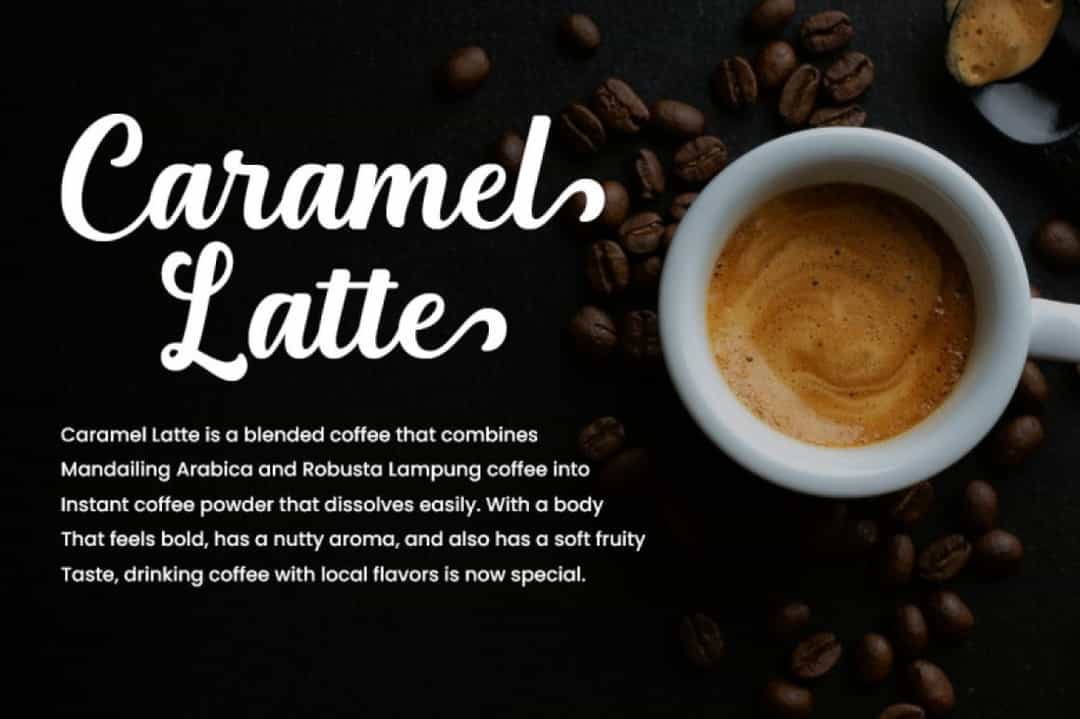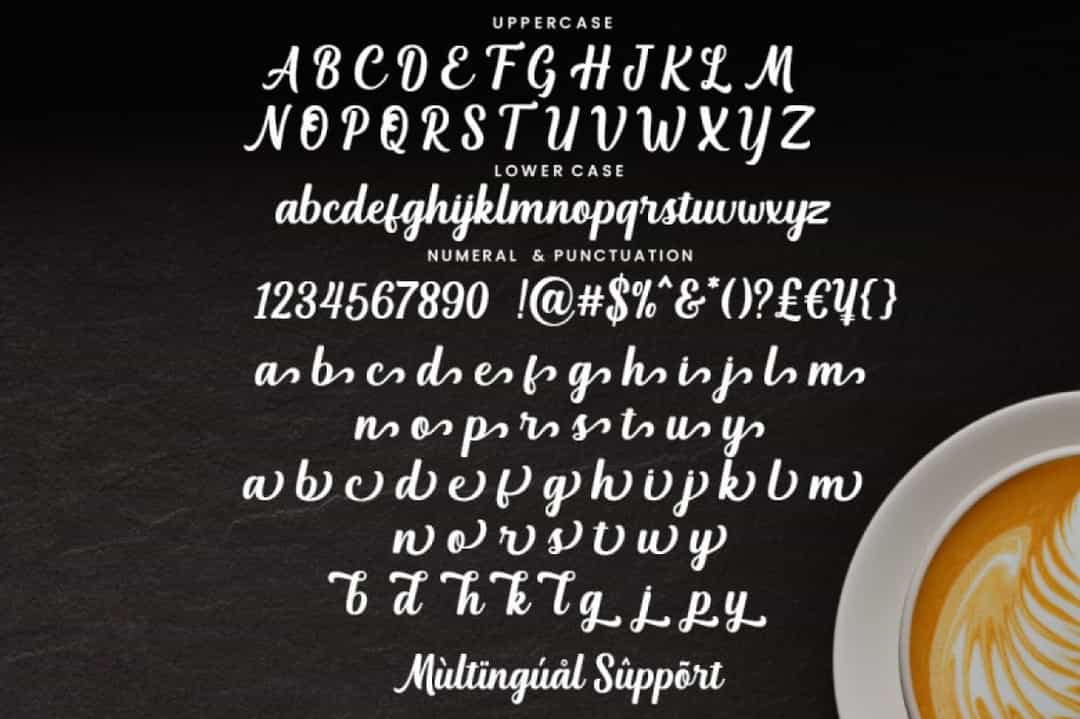
Discover Vanilla Macchiato Font, part of the Calligraphy Handwritten Script collection—a versatile and unique font perfect for adding a personal touch to your projects. Download it for free and enjoy crafting designs with style, from invitations to social media posts. This font is available exclusively for personal use, giving you the freedom to create without limits. Unlock your creativity with Vanilla Macchiato Font today!
Vanilla Macchiato Bold Font is an exquisite cursive typeface featuring well-balanced characters. Being PUA encoded, this font allows easy access to its glyphs and swashes – you will be mesmerized by its incredible versatility when creating stunning designs!